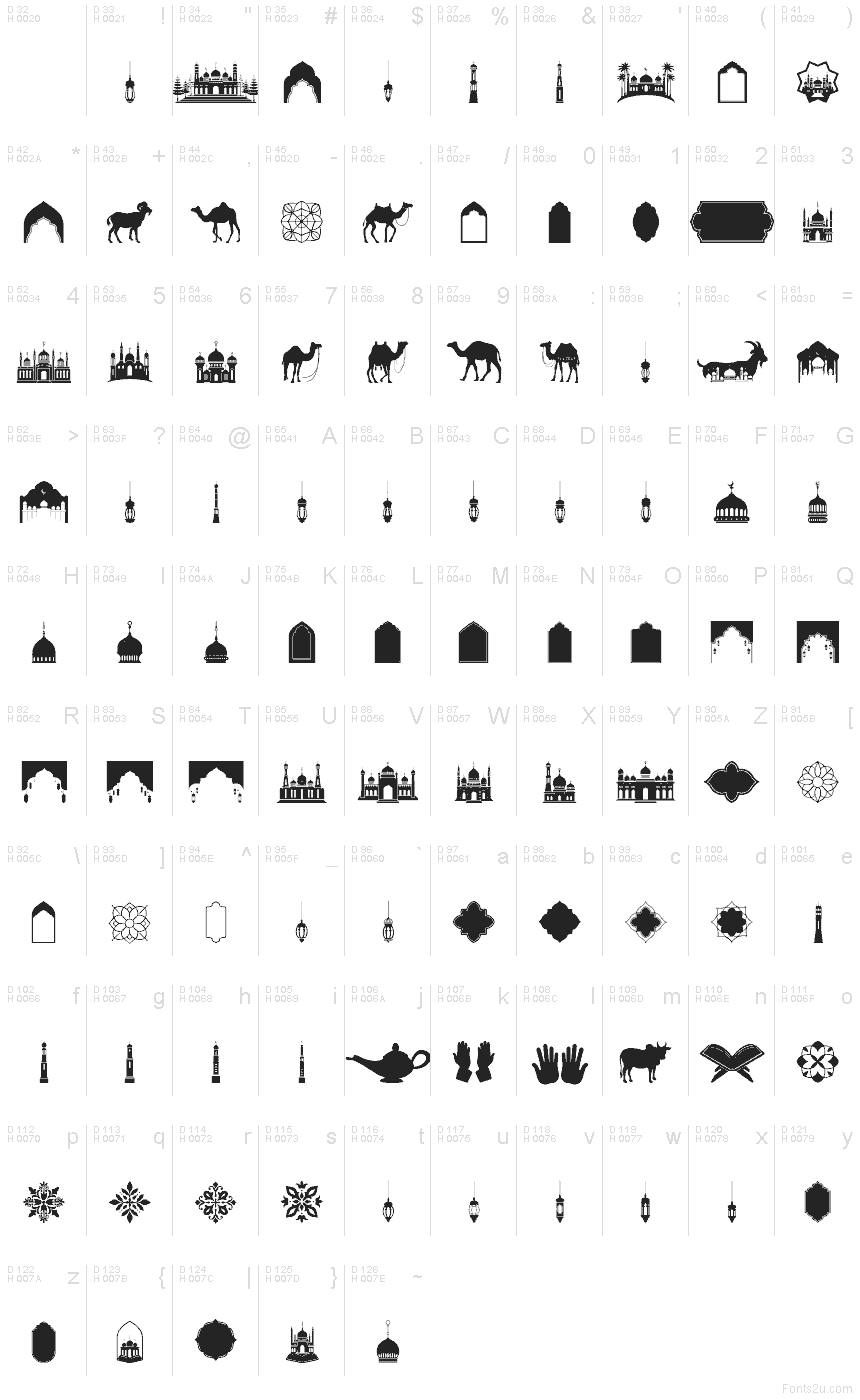
bahlull dingbats Regular
Bahlull Dingbats font by Alit Design is a free decorative dingbats font. It solves a familiar headache: you need authentic Islamic and Middle Eastern motifs fast, without hunting for inconsistent clip art. The set delivers crisp, inky silhouettes with clean edges and balanced proportions—domes and minarets feel architectural, while organic forms keep the icons warm and human. Scale holds up nicely, so the shapes stay bold at poster size and read clearly at small badge dimensions.
Using Bahlull Dingbats, you can swiftly compose Ramadan posters, Eid greeting cards, event flyers, social media graphics, packaging for sweets and dates, shop signage, and editorial spot illustrations. The even stroke density and solid fills create dependable rhythm in layouts, letting text sit comfortably around the icons. Pair this free font with a clean geometric sans and give the icons generous breathing room for a polished, modern look.